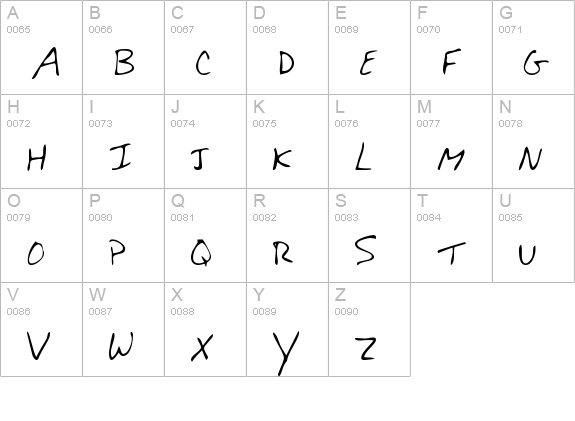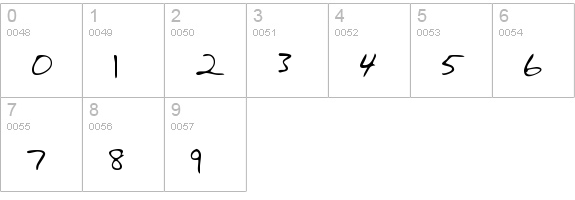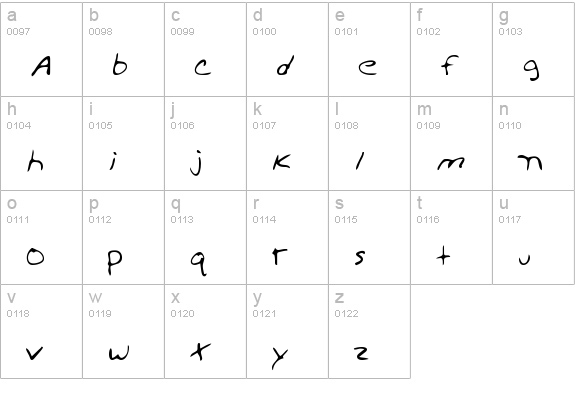
WeldonsHand Regular Font Details
WeldonsHand Regular is the standard, neutral variant in the WeldonsHand typeface family \xE2\x80\x94 well suited to general body text, paragraphs, and standard typographic work.
WeldonsHand Regular is a beautifully handcrafted font that captures the essence of handwritten charm. Its flowing curves and slightly uneven strokes give it a unique and authentic feel, making it perfect for a variety of creative projects. This versatile font can be used for anything from branding and logo design to invitations and social media graphics. Its casual yet sophisticated style adds a touch of warmth and personality to any design. One of the best things about WeldonsHand Regular is that it is freely available to download at FontsMarket.com. This means that you can easily access this stunning font and start using it in your projects without any hassle. Whether you are a professional designer or a hobbyist, this free font is a valuable addition to your font collection. With its wide range of applications and its freely available nature, WeldonsHand Regular is a font that stands out from the crowd. Its elegant and organic design will make your designs truly memorable and captivating. So why wait? Download WeldonsHand Regular today from FontsMarket.com and unleash your creativity with this incredible free font.